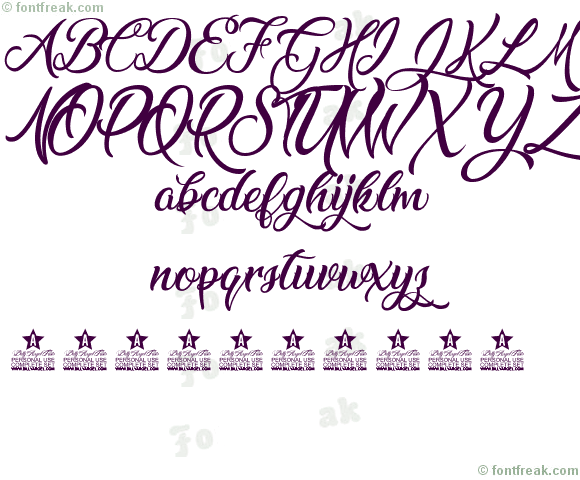
Sea Balance Personal Use Regular
About Sea Balance Personal Use Regular
Sea Balance Personal Use Regular, designed by Billy Argel Fonts, is a beautifully crafted script font that exudes elegance and charm. It features smooth, flowing lines that create an inviting and friendly appearance. The font’s stroke weight is moderate, providing just the right amount of contrast to maintain readability while still showcasing its artistic flair. The generous spacing between characters adds to its legibility, making it suitable for a variety of applications. Its decorative elements, including swirls and curves, evoke a sense of whimsy and creativity, perfect for projects that require a personal touch.
This font is ideal for wedding invitations, where its graceful style can enhance the romantic theme of the occasion. It also works beautifully on greeting cards, adding warmth and personality to heartfelt messages. For small businesses, Sea Balance Personal Use Regular can elevate branding materials, such as logos and menus, by providing a distinctive and memorable look. Content creators will find it useful for social media graphics and blog headers, allowing them to convey a unique voice that resonates with their audience.
What sets Sea Balance Personal Use Regular apart is its ability to blend sophistication with approachability, making it a fantastic choice for a plethora of creative uses. Its unique character and visual appeal will leave a lasting impression on all who encounter it.